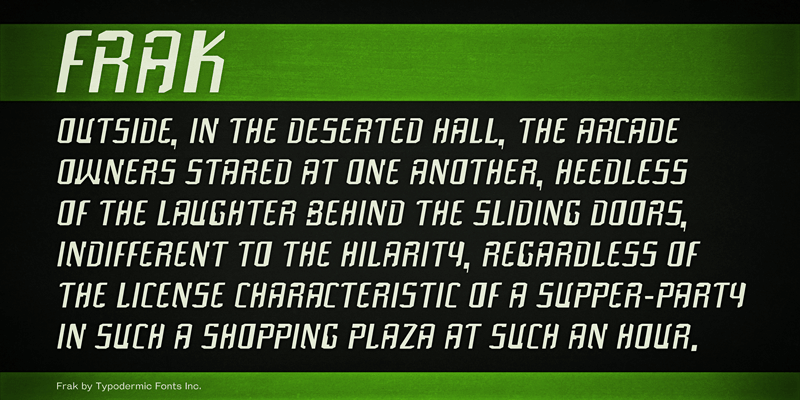
Frak is an incongruous science fiction font made from old spaceship parts. This font includes a license that allows free commercial use: sometimes referred to as a desktop license. This allows you to install the font on a computer and use it to create posters, web graphics, game graphics, t-shirts, videos, signs, logos and more. Read the license agreement for details. If you'd like to embed this font in an app, ebook, on the web or anything that's not covered by the desktop license agreement, visit the link below. You'll find distributors who offer different types of licenses or you can contact me for help. http://typodermicfonts.com/frak/ |